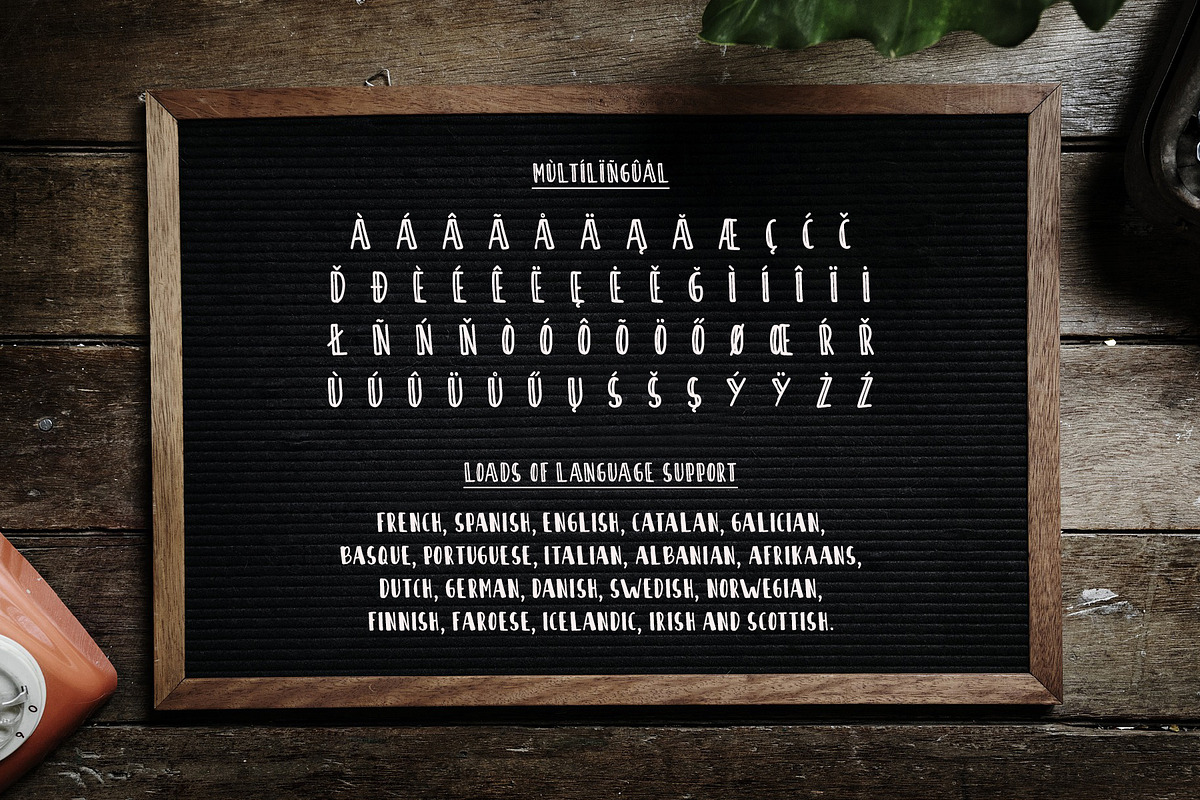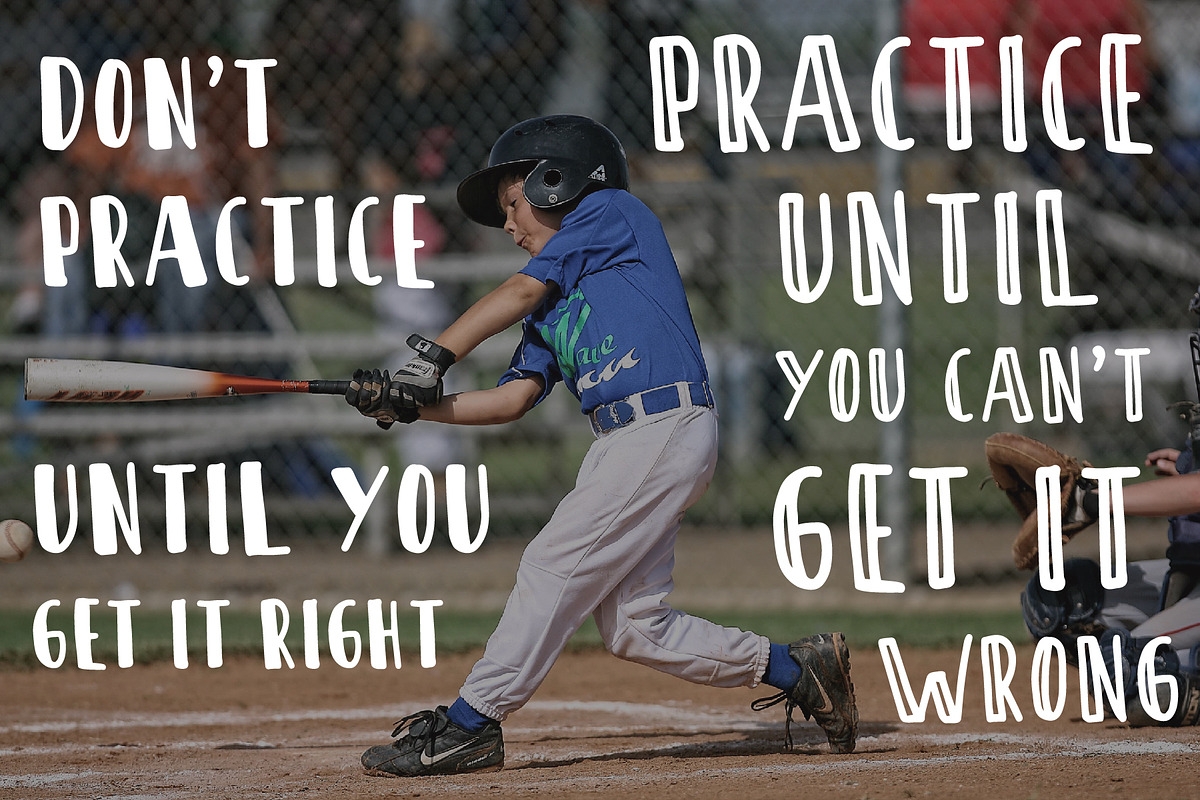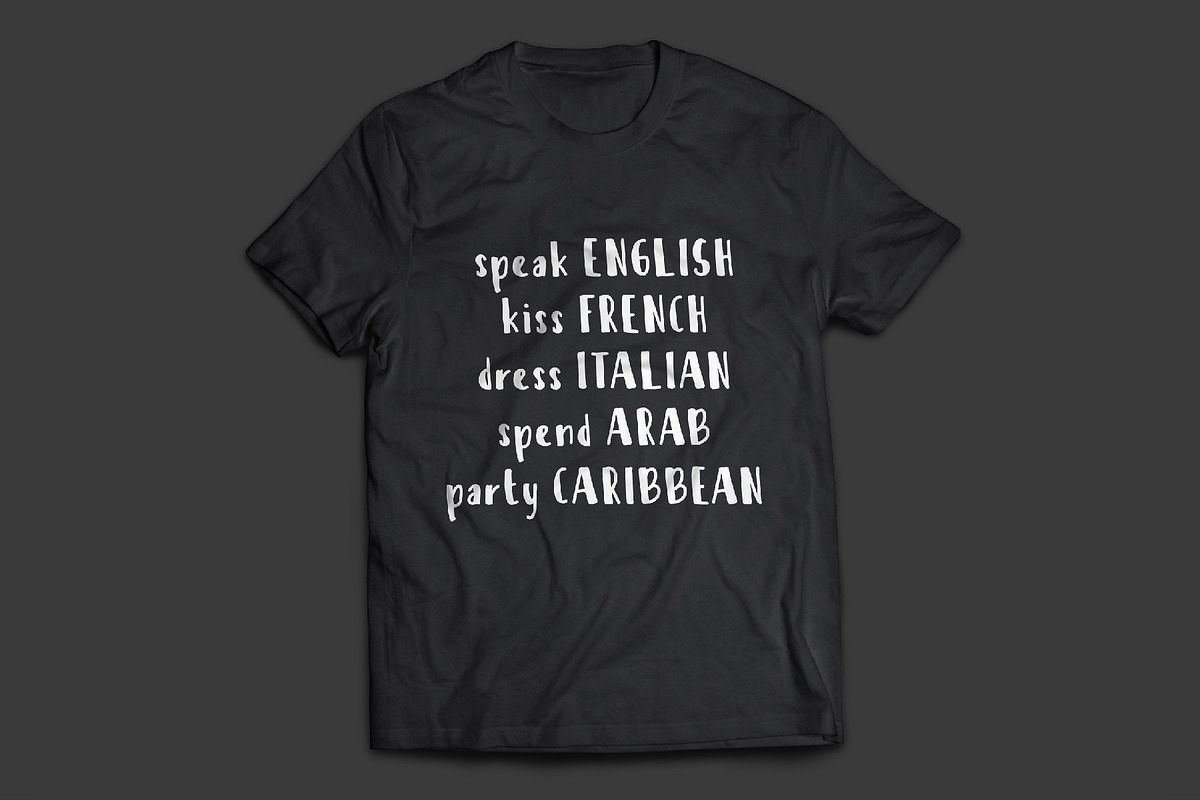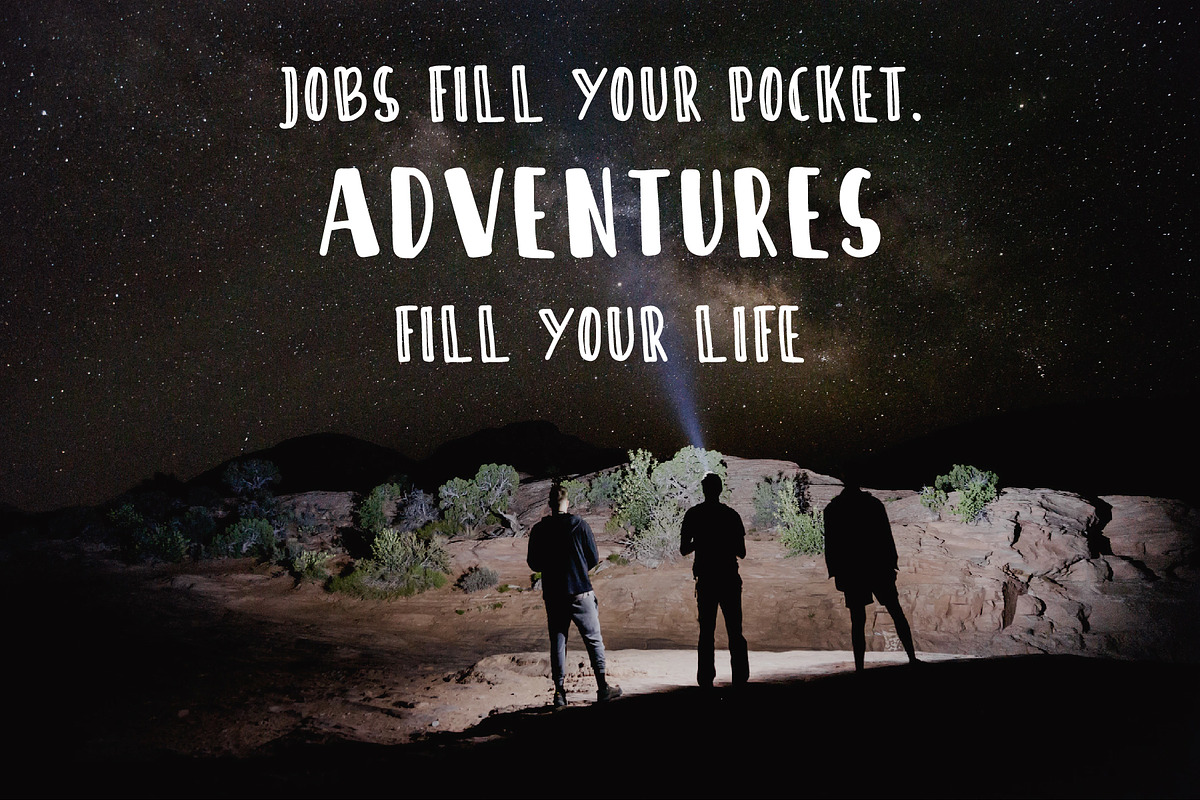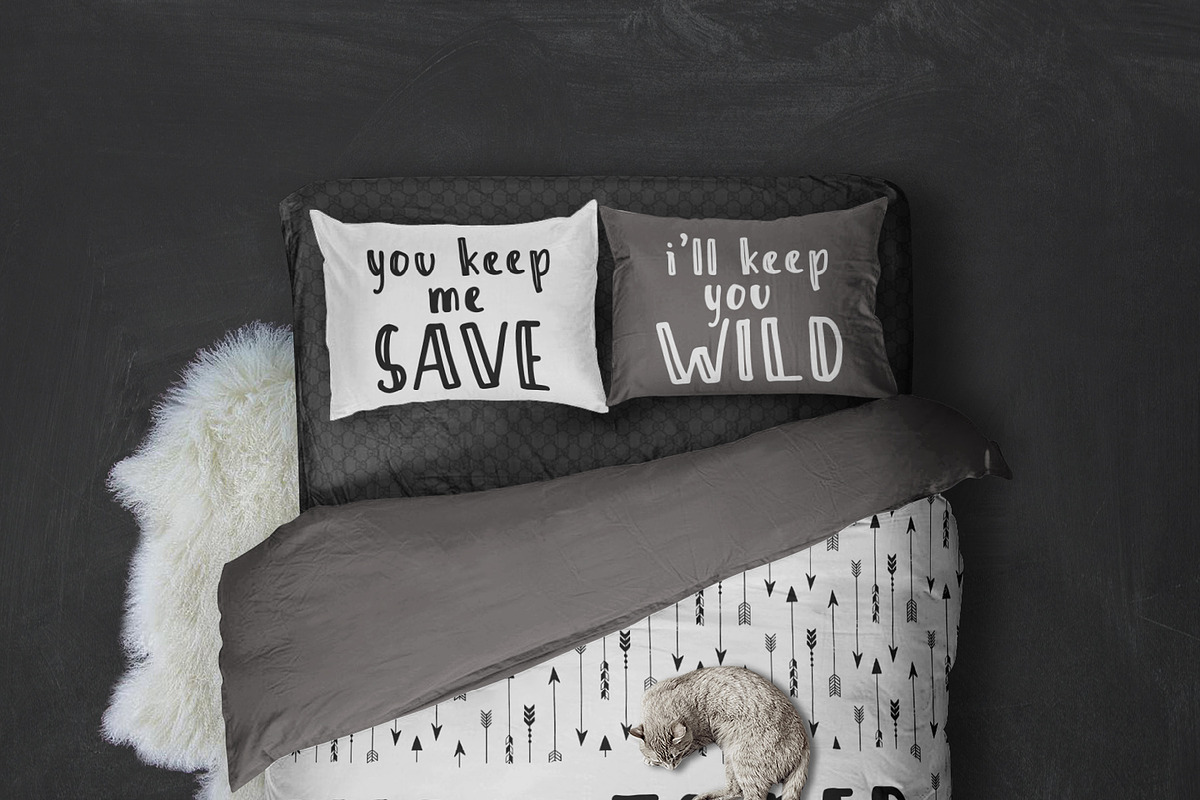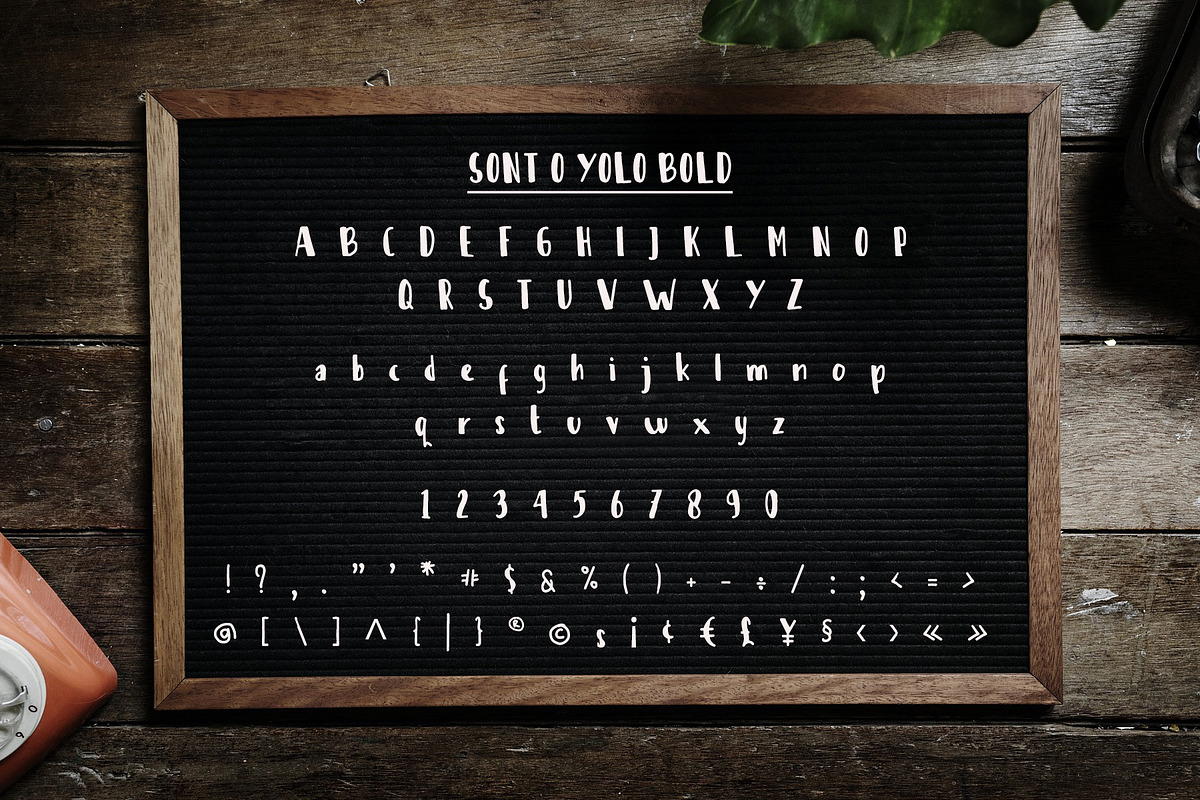
Sont O Yolo - Handwritten Font
Hi! introduce Sont O Yolo Font. It's allowing you to create Logo, greeting cards, quotes, posters, branding, stationary, design title, blog header, art quote, typography art, modern envelope lettering or any purpose to make our art/design project look pretty and trendy.
Sont O Yolo Font is suitable to use for any kind of design such as branding projects, logo, wedding designs, social media posts, advertisements, product packaging, product designs, label, photography, watermark, invitation, poster, t-shirt design, stationery and any projects that need handwriting taste.
Sont O Yolo also includes full set of uppercase and lowercase letters, numerals, punctuation, multilingual. It would be perfect for all types of printing techniques, you can do embroidery, laser cut, gold foil, etc.
French, Spanish, English, Catalan, Galician, Basque, Portuguese, Italian, Albanian, Afrikaans, Dutch, German, Danish, Swedish, Norwegian, Finnish, Faroese, Icelandic, Irish and Scottish.
- Sont O Yolo also includes full set of uppercase and lowercase letters, numerals, punctuation, multilingual.
Sont O Yolo - Handwritten Font by MuSan fits naturally into Branding, posters, packaging, typography.